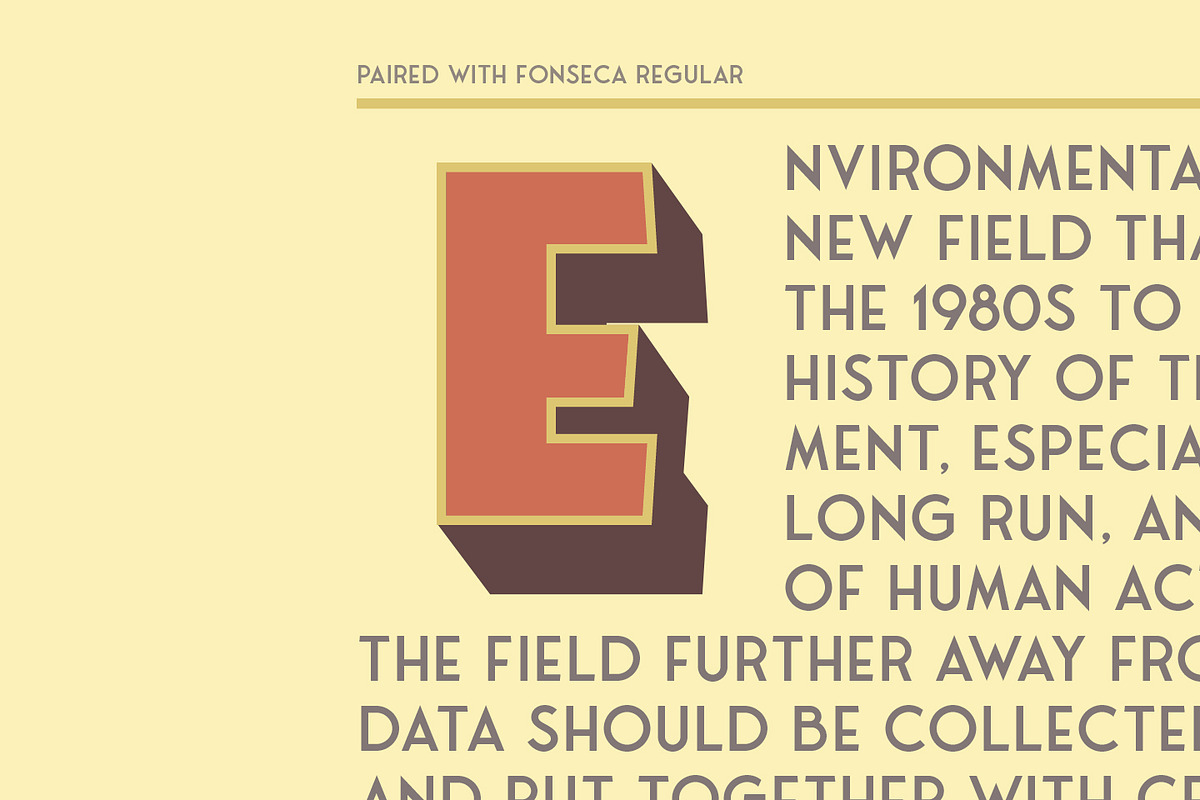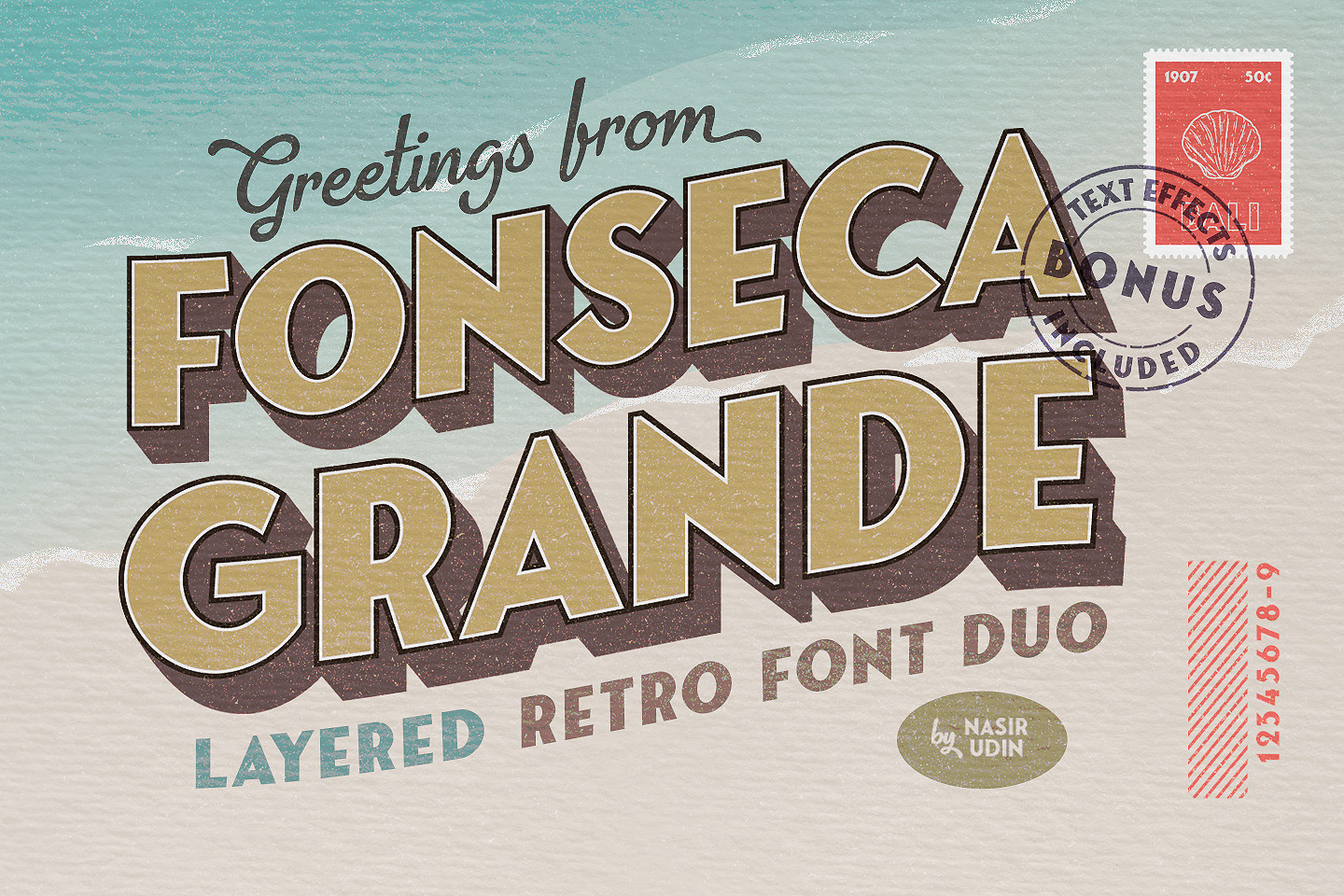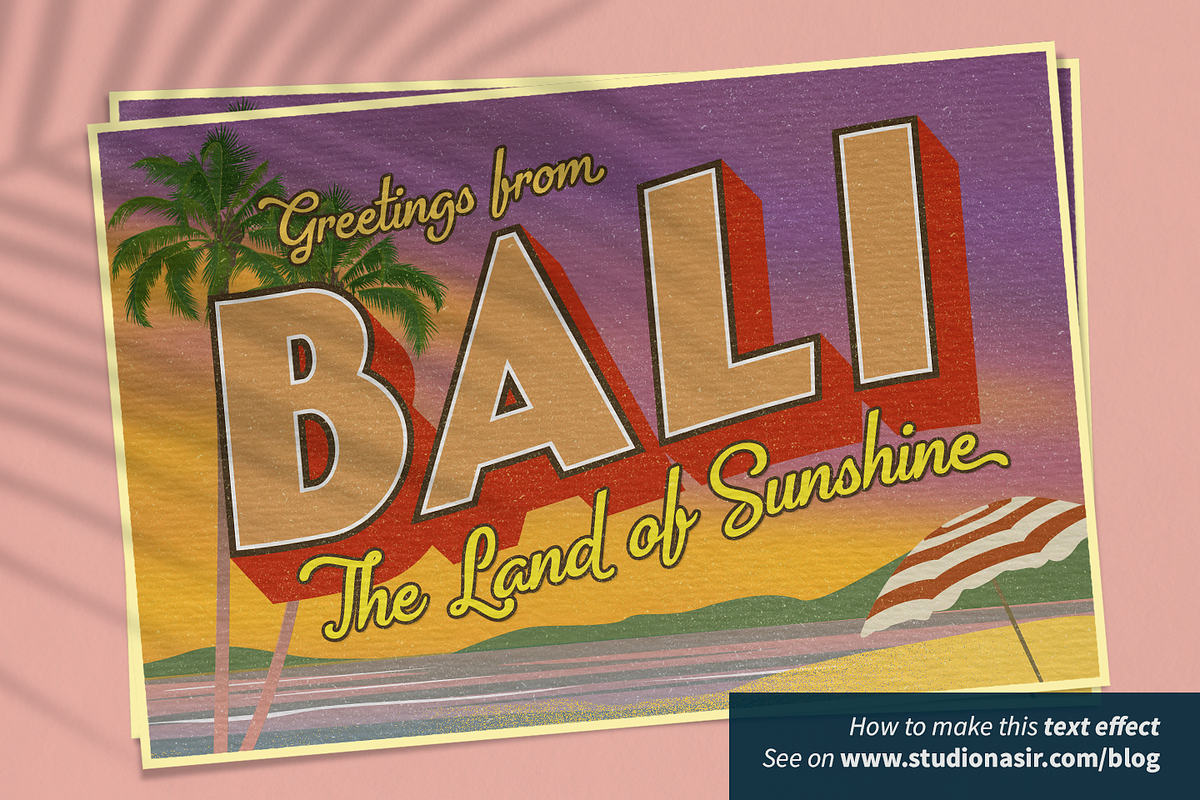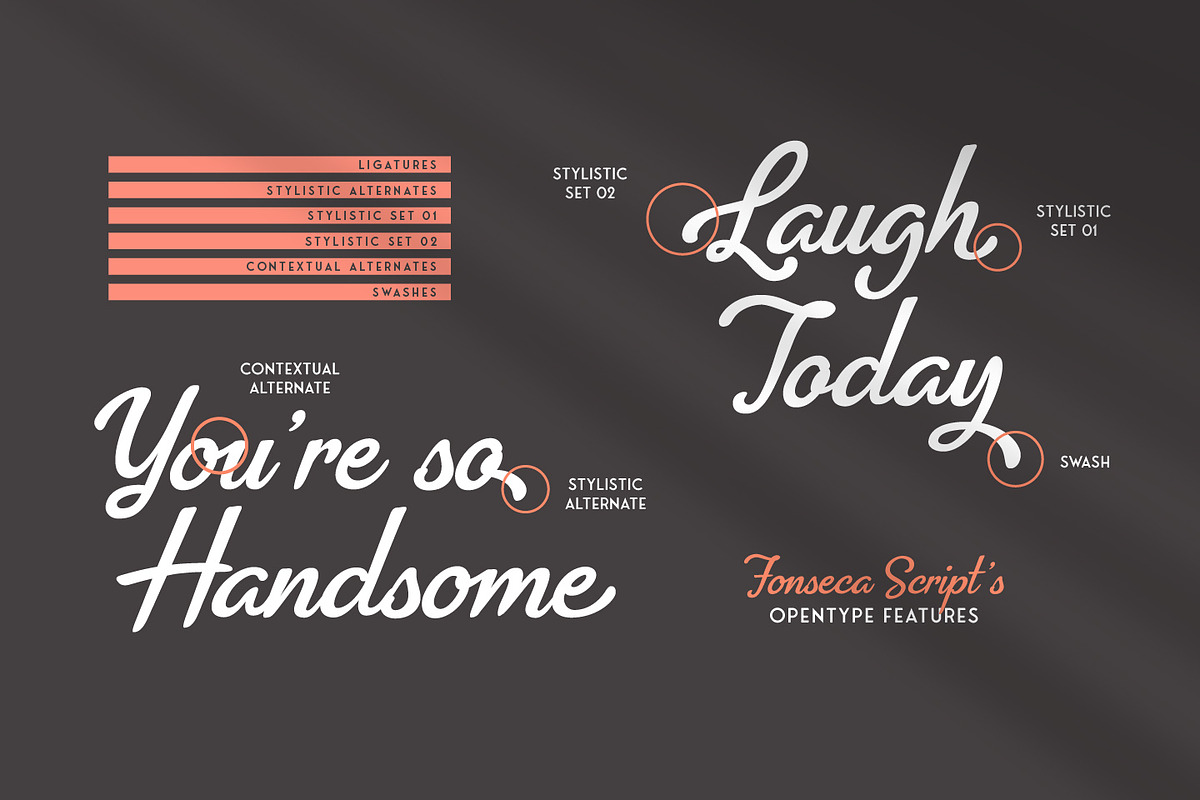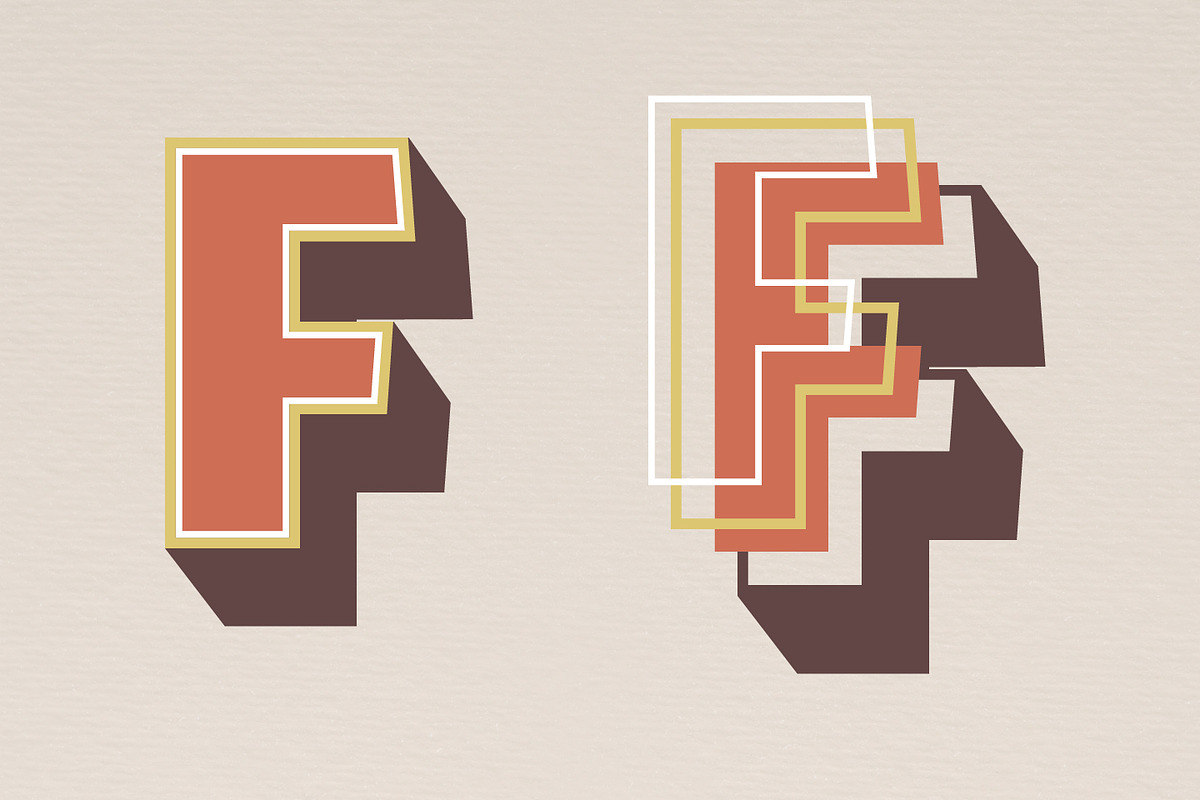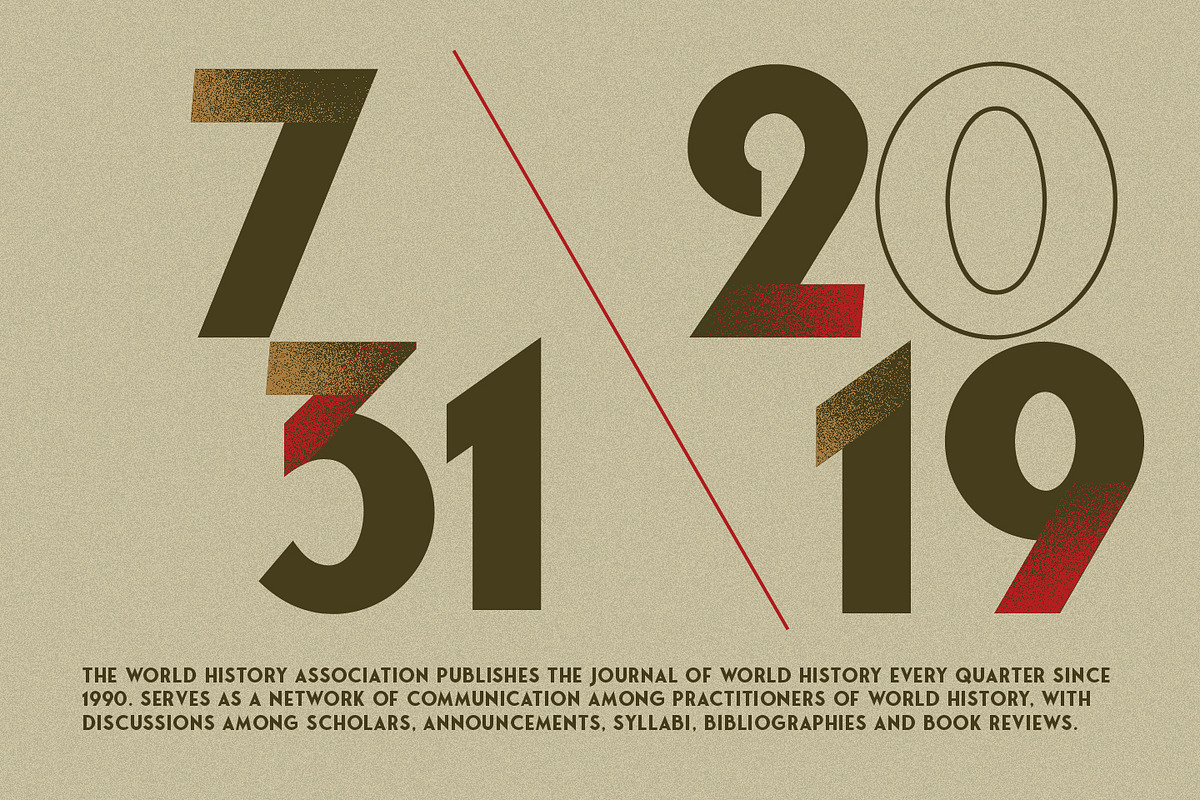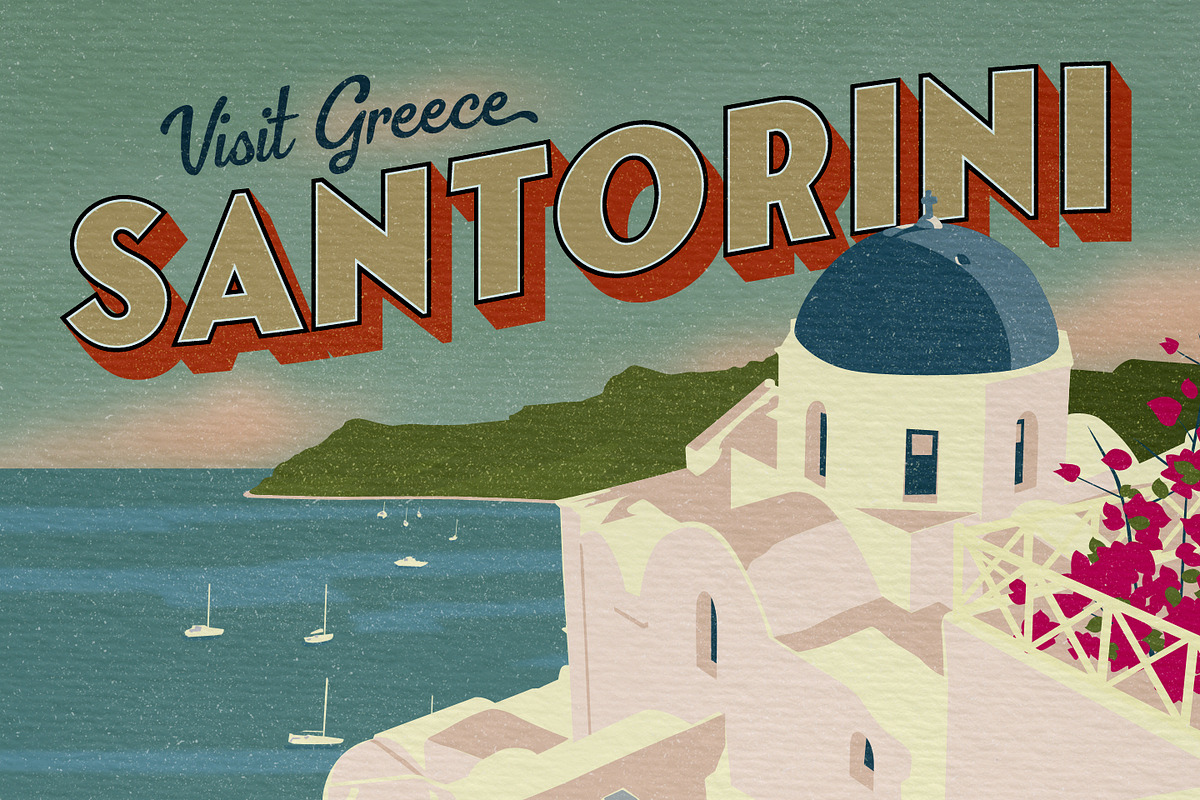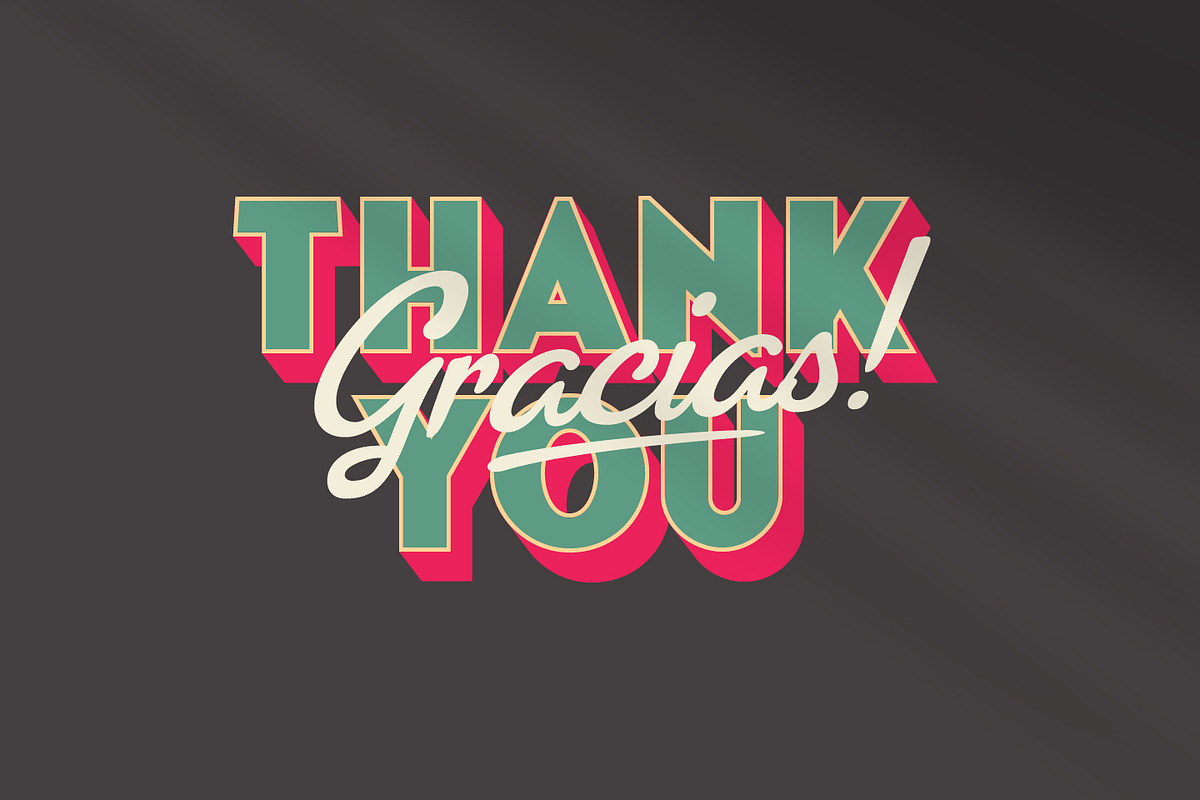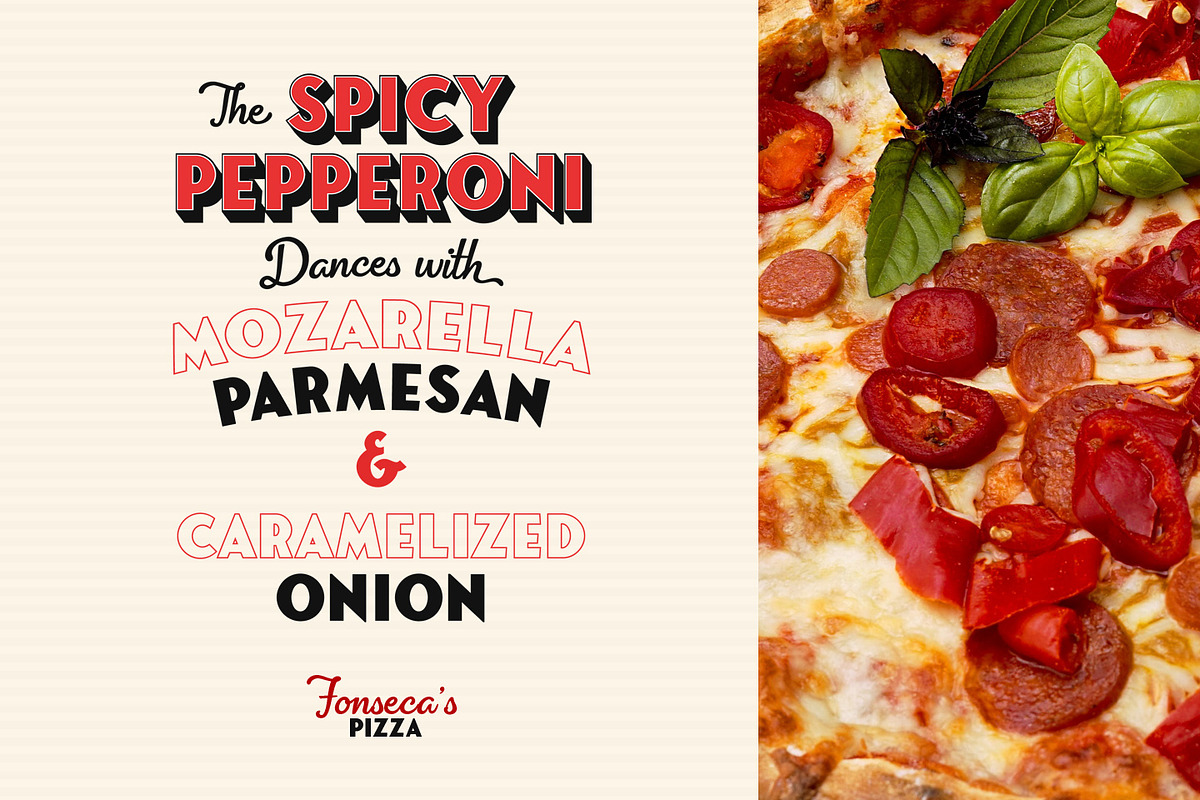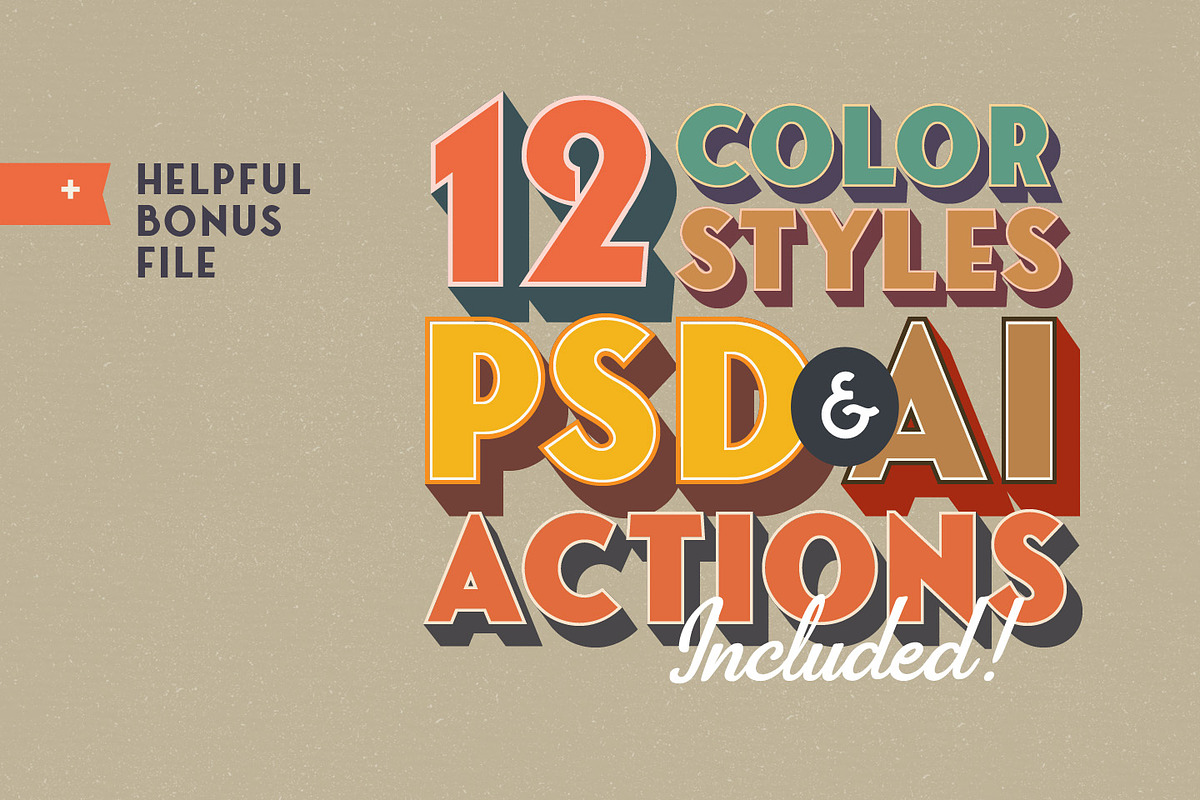
Fonseca Grande ~ Font Duo +BONUS
Greetings from a new font duo, Fonseca Grande!
Classic city postcards would come in fresh new look with this fonts combination. Layered bold retro sans serif complemented with a handwritten script perfectly paired, bring back your memories of thousands cities you have explored.
Vintage world travel postcards (the 'Greetings from' postcards) are the main inspiration of this fonts collection. But not limited to postcards, you can use this font family for any projects; branding, posters, packaging, restaurant menus, stamps, badges, signage, you guys are the expert at this field!